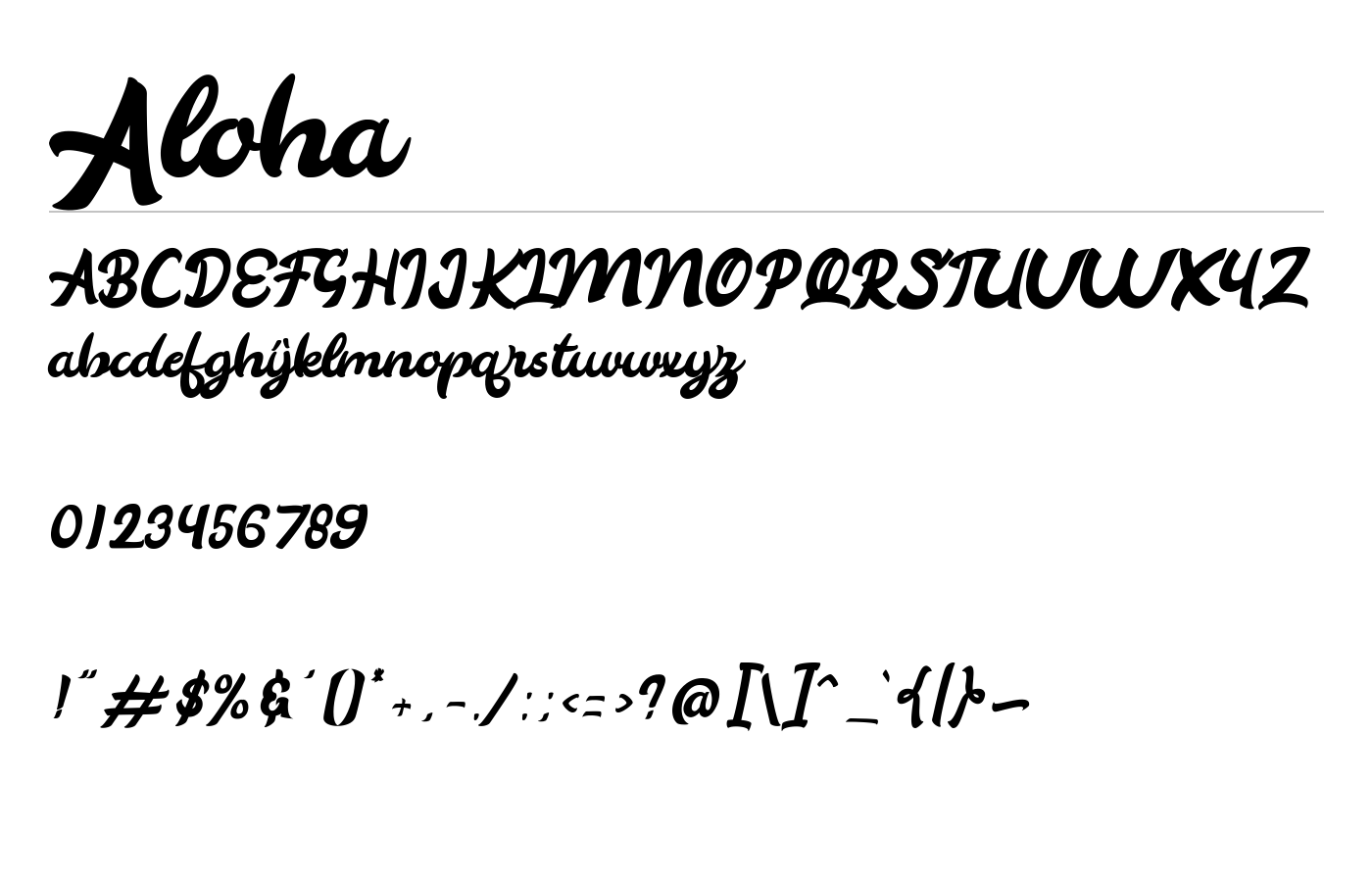
Aloha Font is a bold, script-style typeface with a lively and friendly personality. Its smooth, flowing strokes and slightly condensed letterforms make it perfect for eye-catching headlines, logos, and packaging that want to convey a casual yet confident vibe. This font works well in creative, playful, and informal branding where a personal touch is desired.
Aloha Font
About Aloha Font